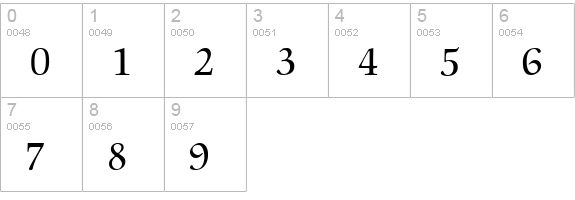
C792-Roman-Regular is the standard, neutral variant in the C792 typeface family \xE2\x80\x94 well suited to general body text, paragraphs, and standard typographic work.
C792-Roman-Regular is a versatile and classic font that exudes elegance and sophistication. With its timeless design and clear legibility, this font is perfect for a wide range of design projects, from invitations to branding and beyond. The clean lines and balanced proportions of C792-Roman-Regular make it a reliable choice for both print and digital applications. What sets C792-Roman-Regular apart is that it is available for free download at FontsMarket.com. This means you can easily access and use this high-quality font in your projects without any cost. Whether you're a professional designer or a hobbyist, C792-Roman-Regular offers a premium look and feel without the premium price tag. Don't miss out on this fantastic font - download C792-Roman-Regular today and elevate your designs with its timeless appeal.